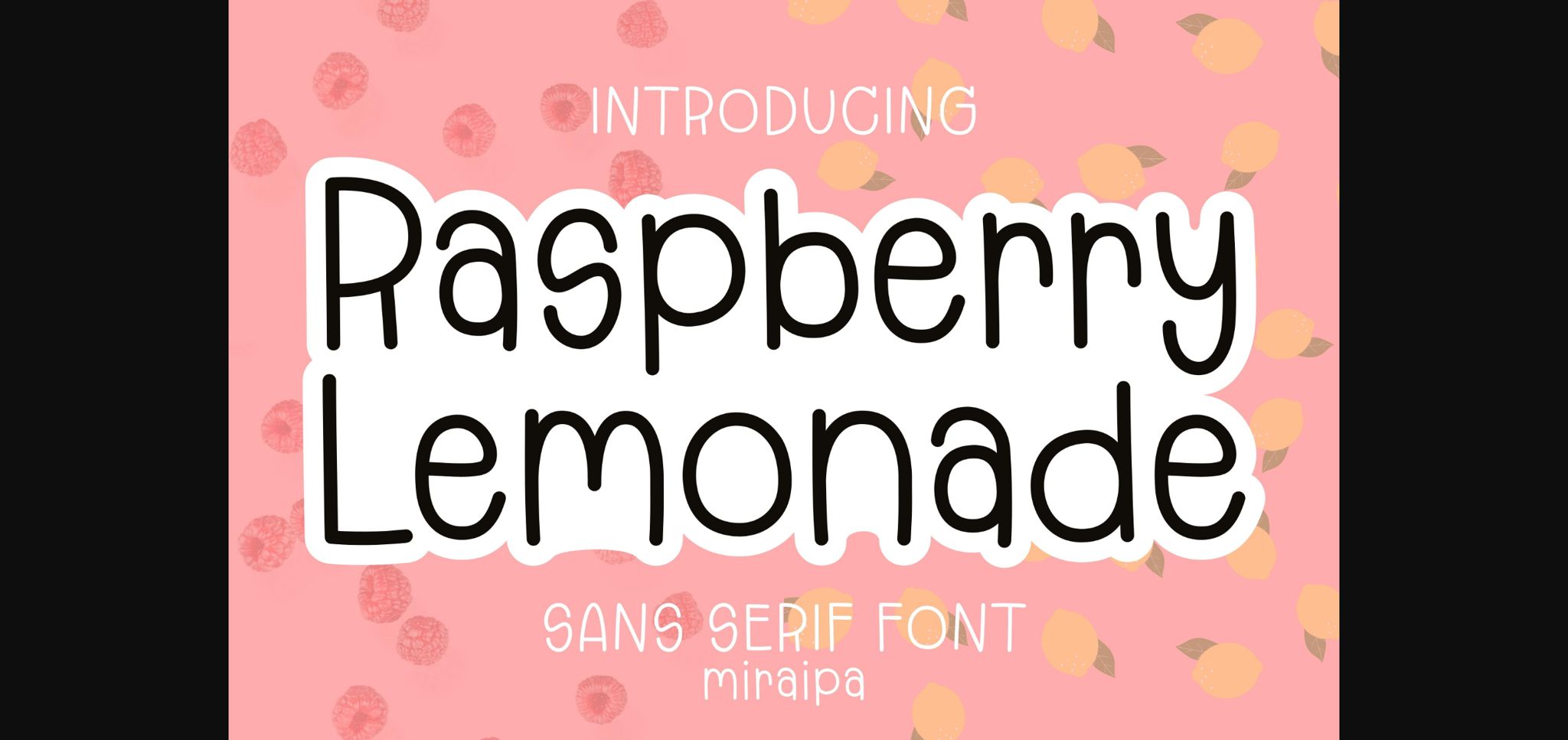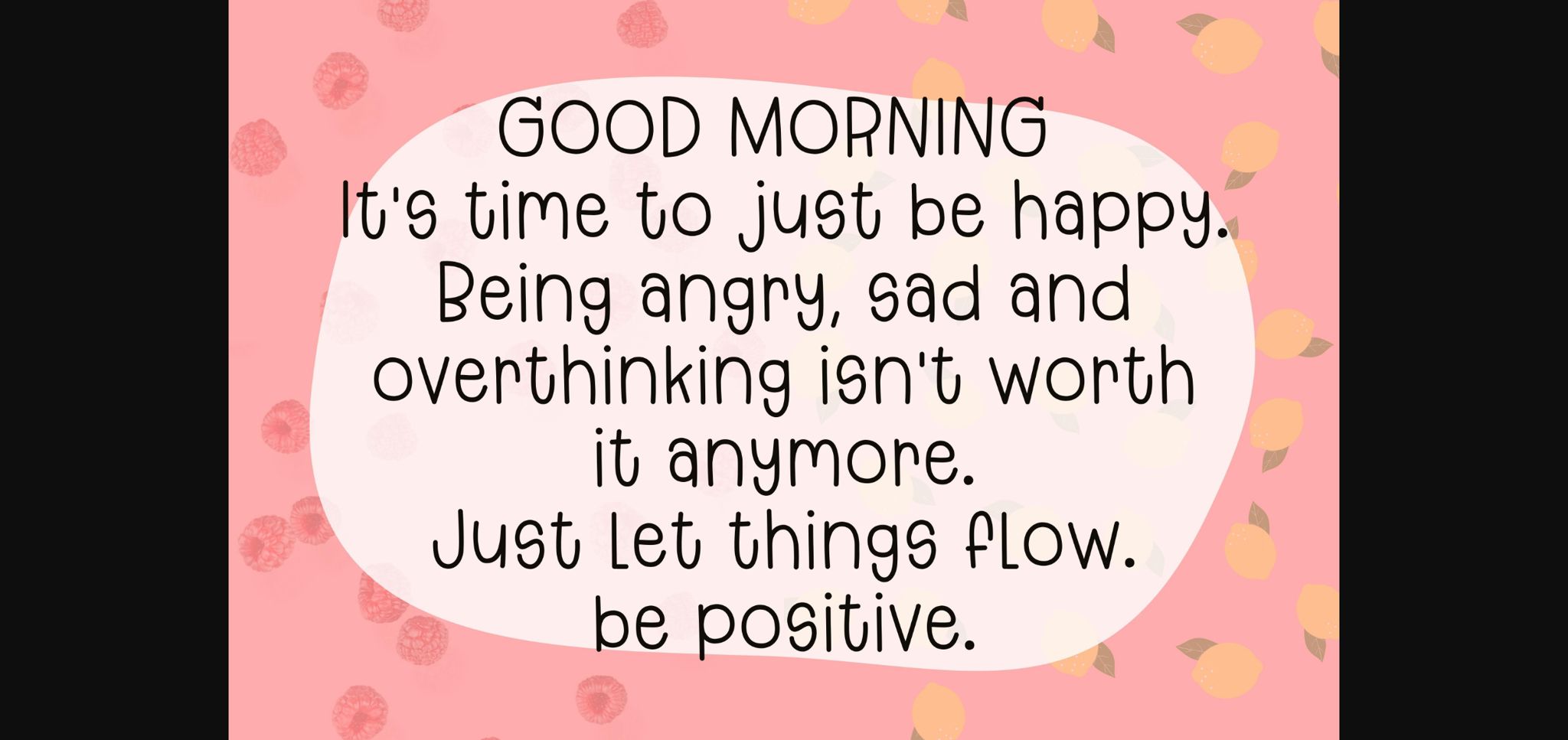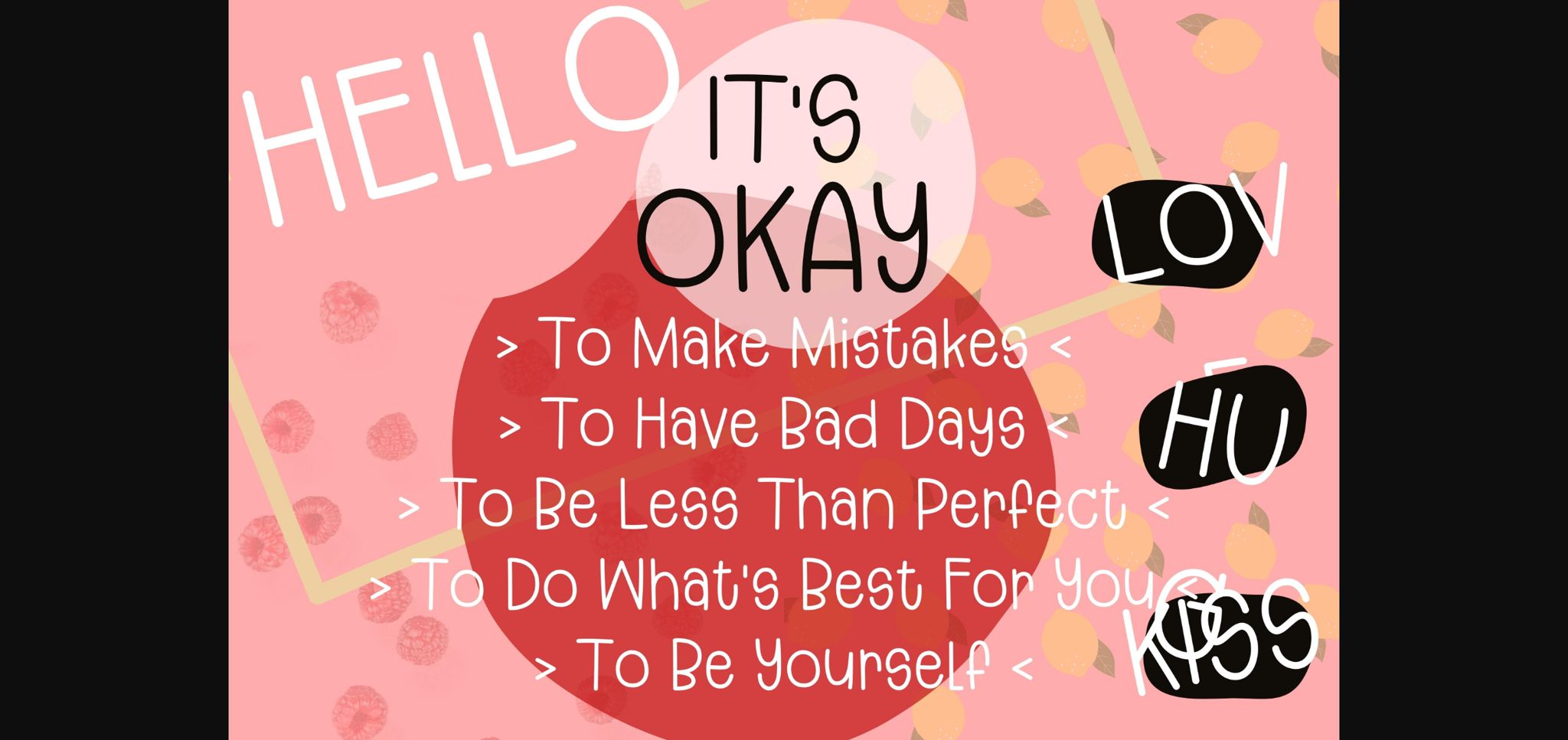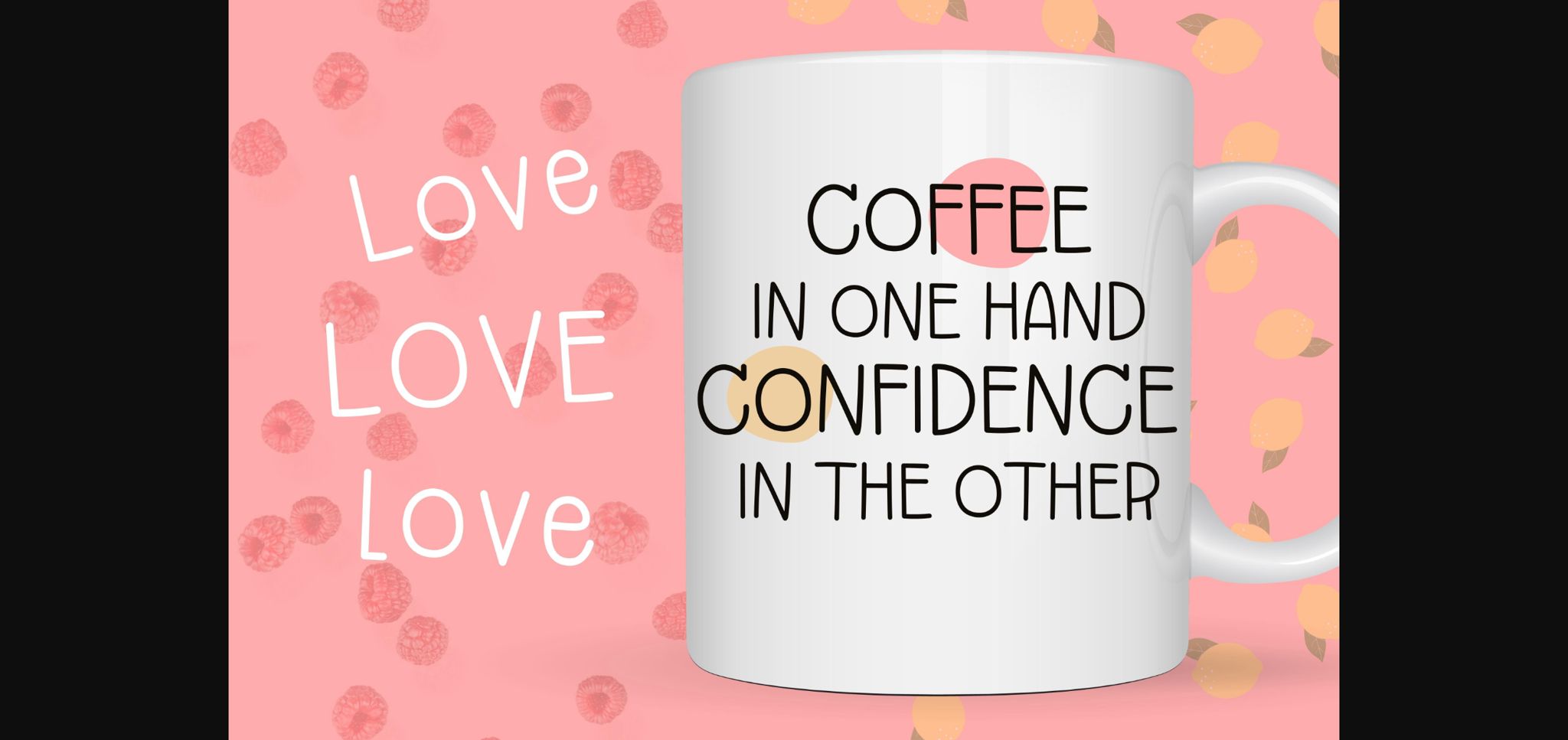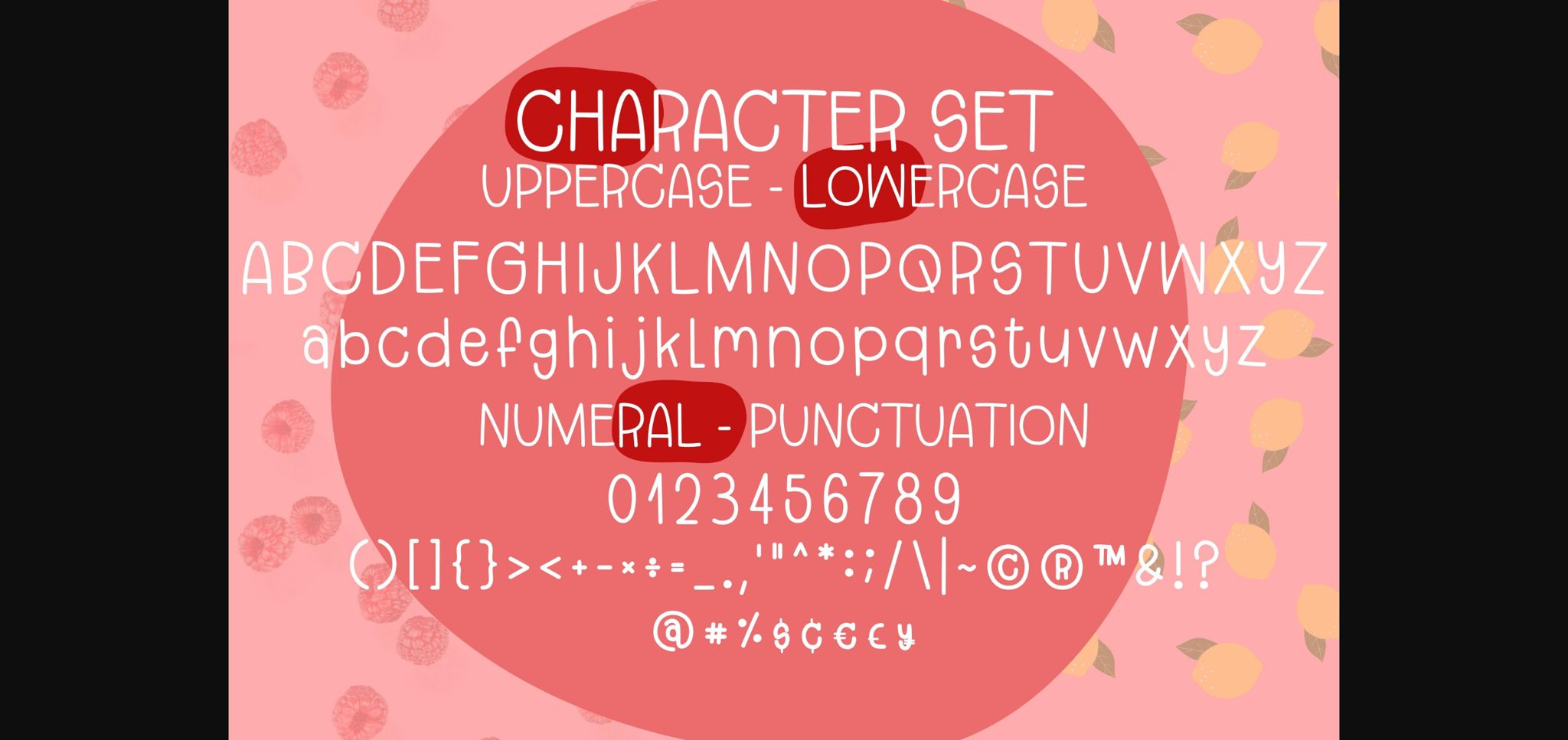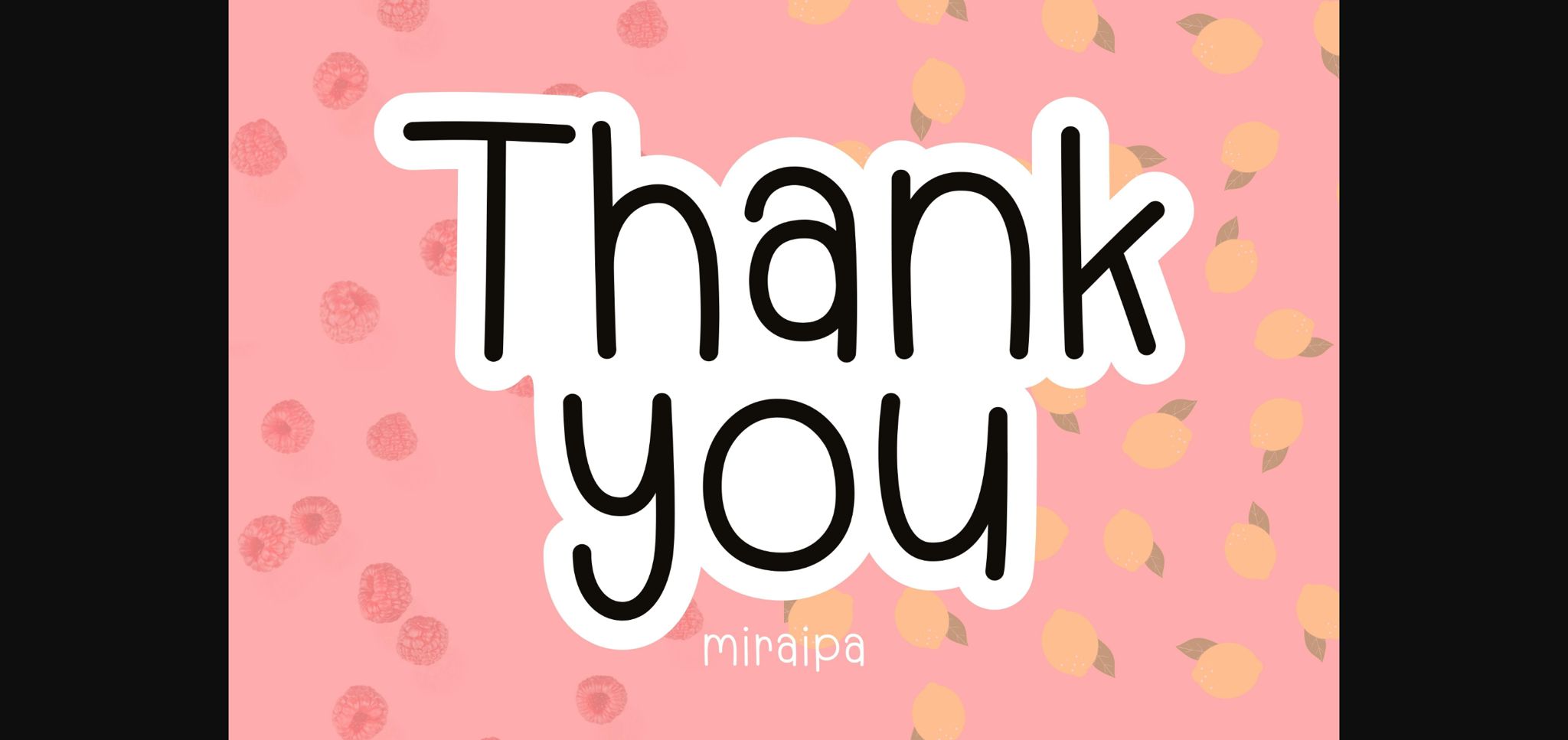
Raspberry Lemonade Font
About Raspberry Lemonade Font
Raspberry Lemonade is designed in a cute and friendly sans serif font style. It’s charming, whimsical, and a bit quirky. It would be awesome to your fun projects or diary planner. Add it to your perfect projects such as Easter, back to school, wedding, party decoration, invitations, Fall, Halloween, Christmas, posters, blogs, clothing, child-related designs, greeting cards, social media posts or anything that needs a friendly touch. Add it now to your fonts library, and it will bring any of your DIY projects to life.